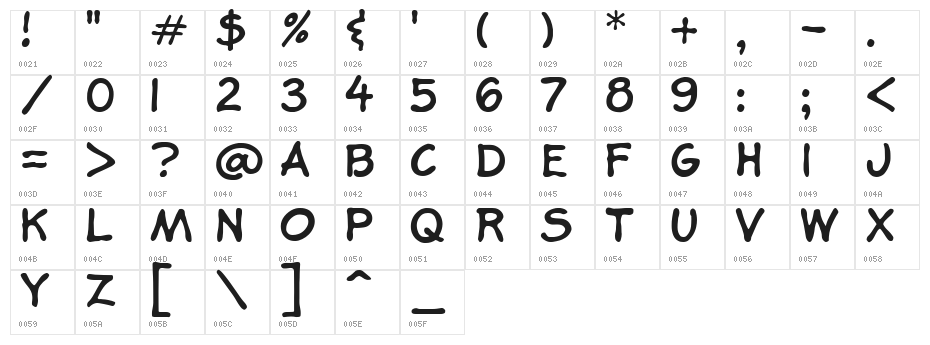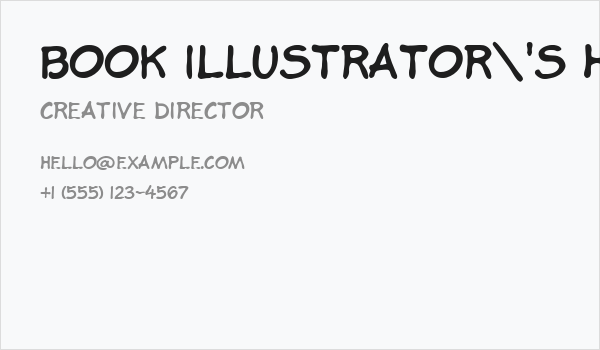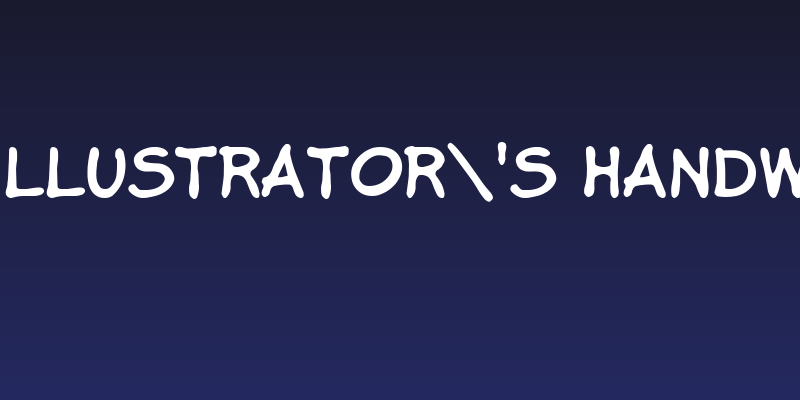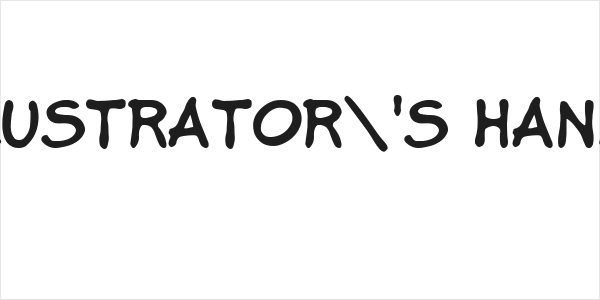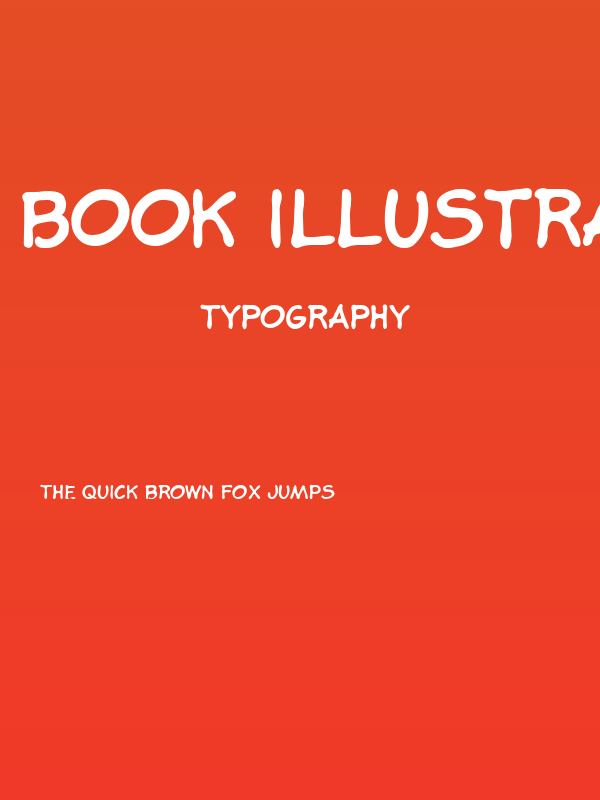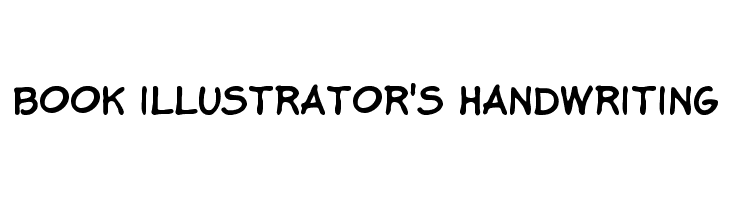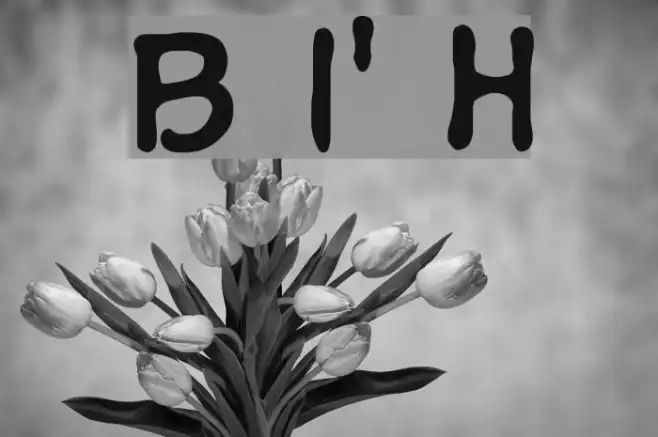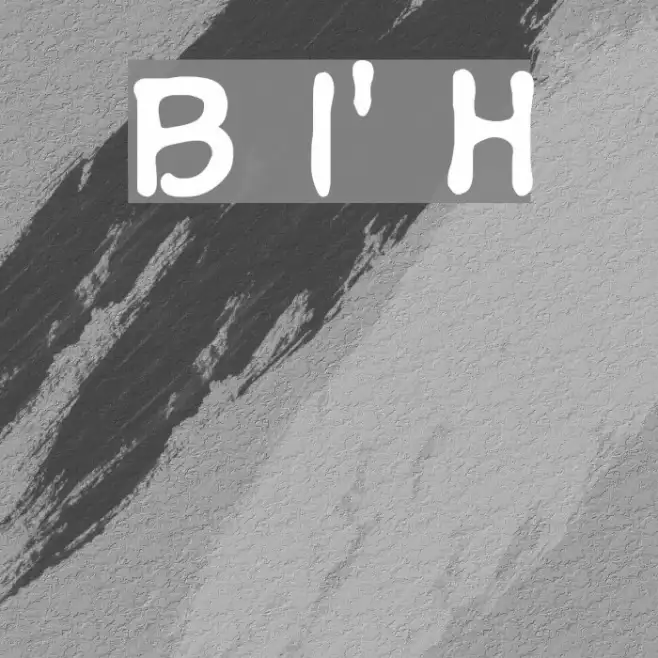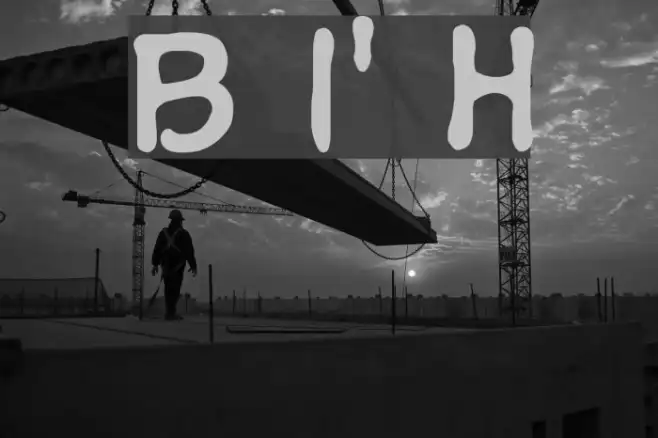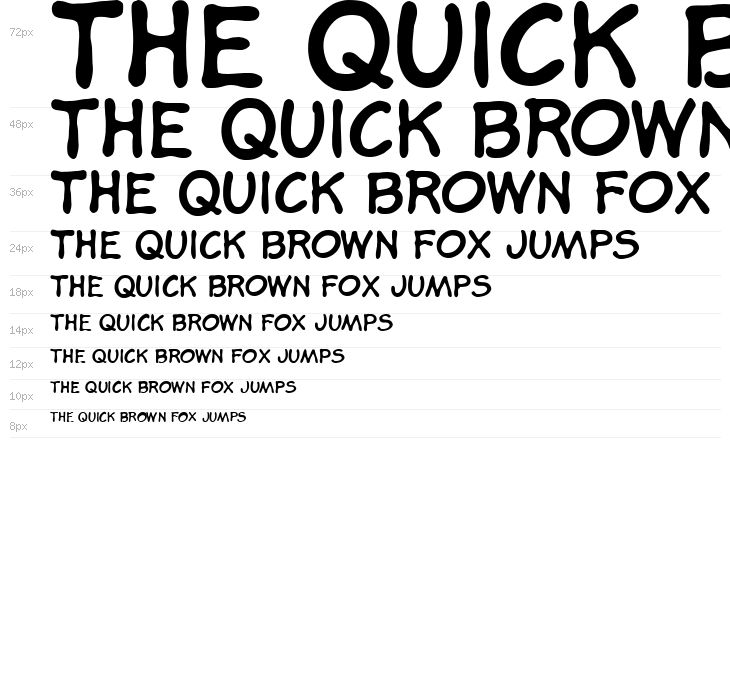
Book Illustrator's Handwriting Font
Book Illustrator's Handwriting Description
This font exudes a playful and whimsical charm, reminiscent of a child's handwriting or a casual note scribbled in a sketchbook. The letters are rounded and slightly irregular, giving them a friendly and approachable feel. The strokes are consistent in thickness, contributing to a cohesive look across all characters. The numerals and special characters maintain the same playful style, ensuring uniformity throughout. This font is ideal for projects that require a personal touch, such as children's books, greeting cards, or informal invitations. Its unique style can add a sense of warmth and creativity to any design.
| Overall Style | Playful, Whimsical |
| Use Case | Headlines, Creative projects, Informal text |
| Proposed Projects | Children's books, greeting cards, informal invitations, creative projects. |